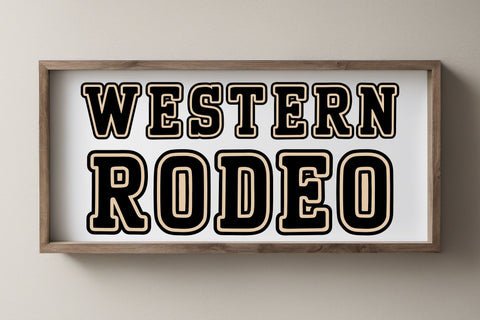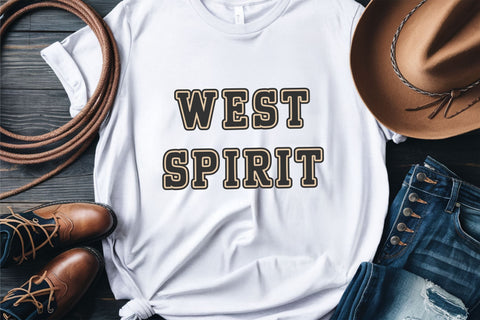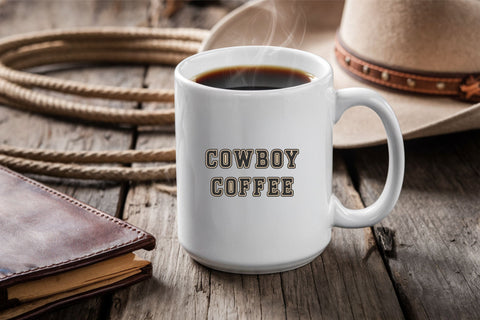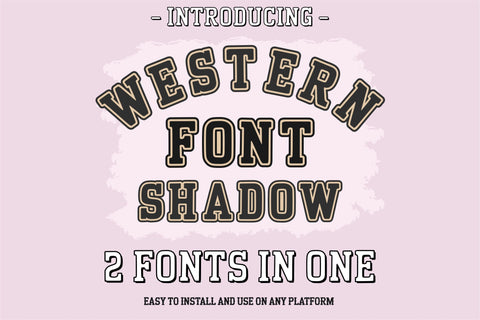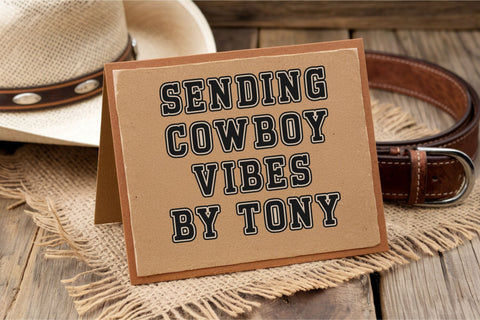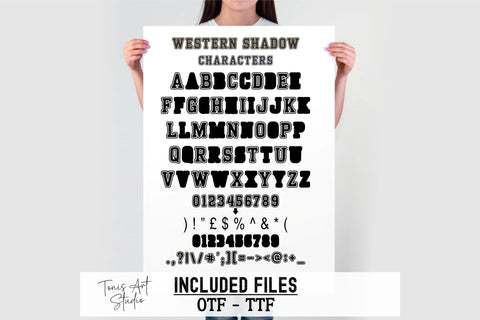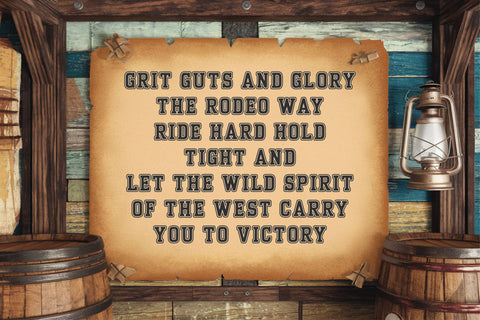
Western Shadow Font | Rodeo Cowboy Font | Rustic Western
The Western Shadow Font is a bold, rugged typeface inspired by the Wild West. Perfect for rodeo graphics, cowboy branding, Western t-shirts, rustic signage, and farmhouse decor. This classic cowboy font features shadowed, vintage-style lettering that adds an authentic Western rodeo feel to any design.
Whether you’re working on Cricut or Silhouette projects, digital designs, or sublimation prints, this font is a great choice for country-themed merchandise, rodeo posters, and rustic farmhouse decor. Ideal for t-shirts, mugs, stickers, tote bags, and cowboy-inspired branding.
✔ Western Shadow Font – Bold, classic cowboy typeface